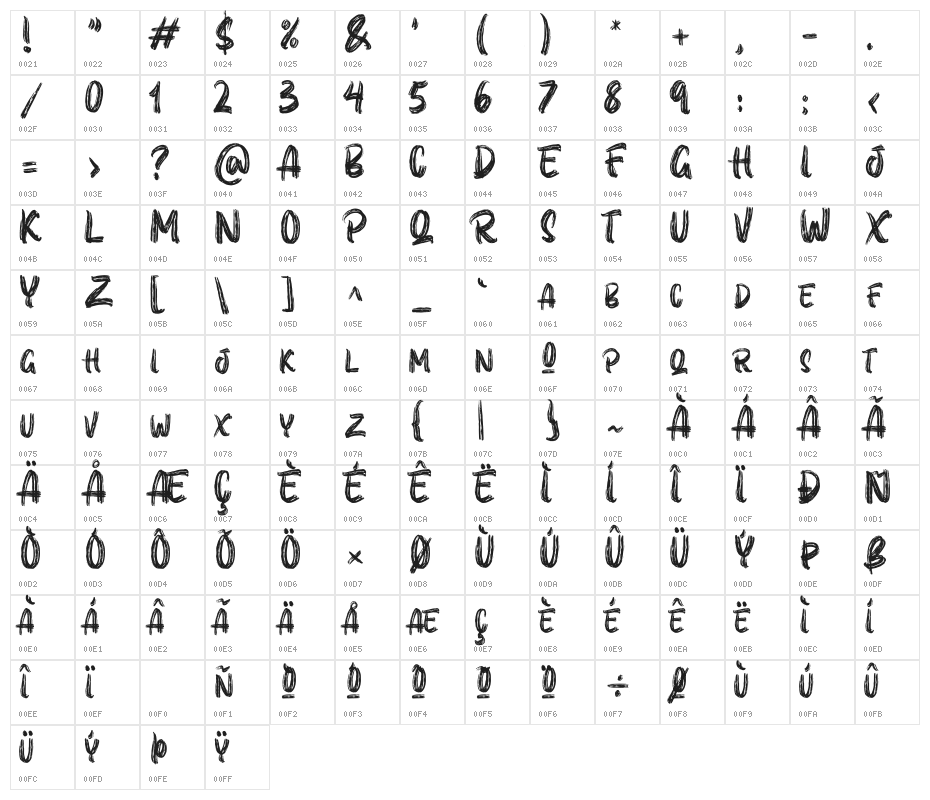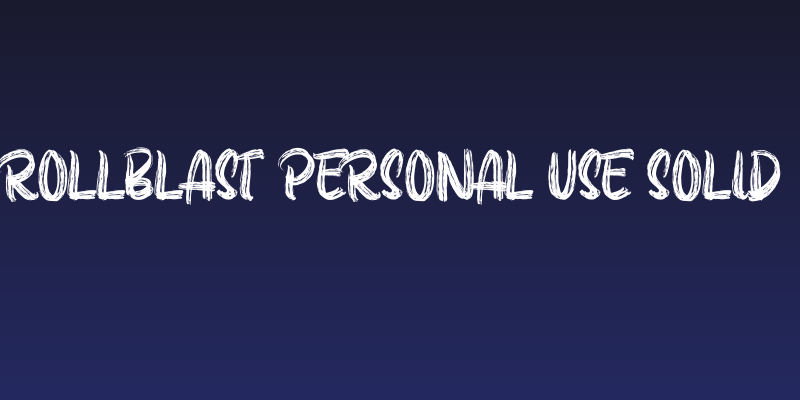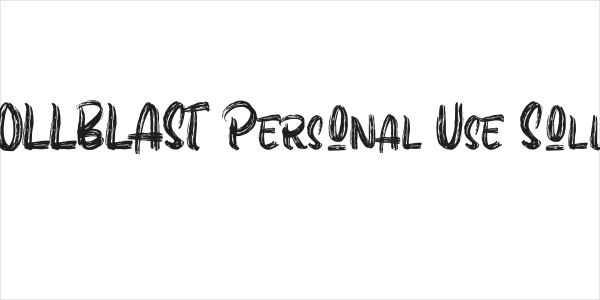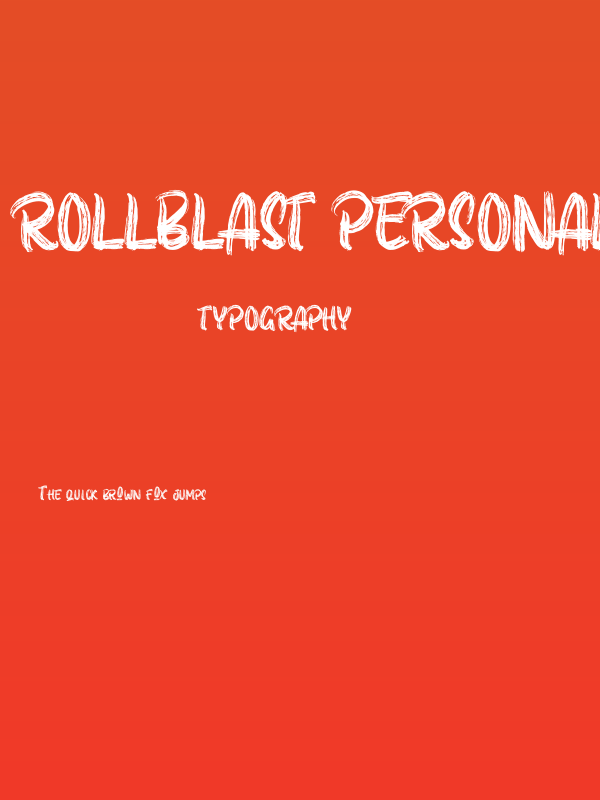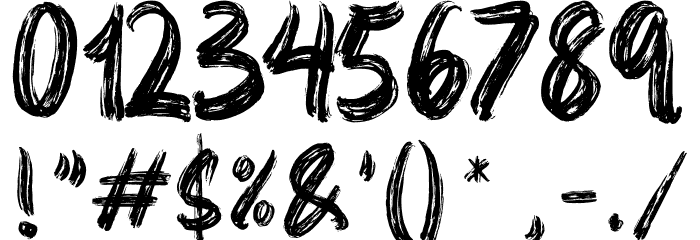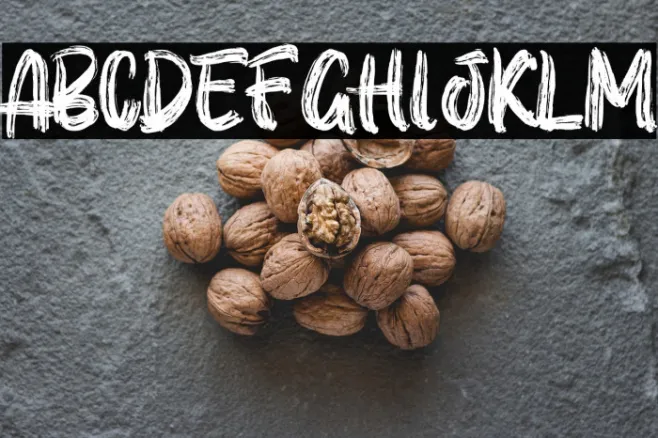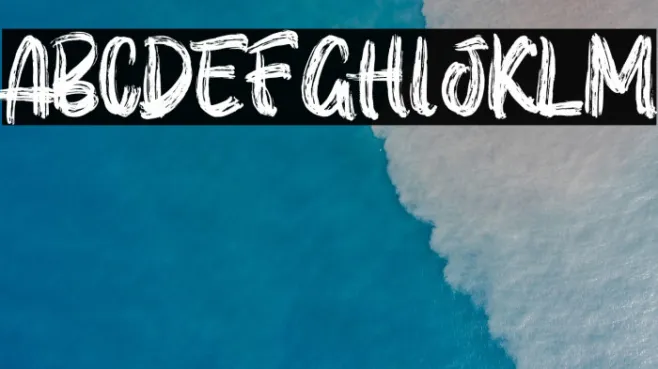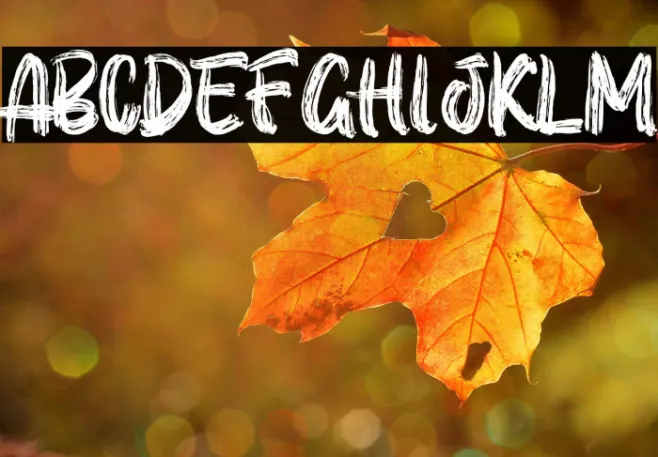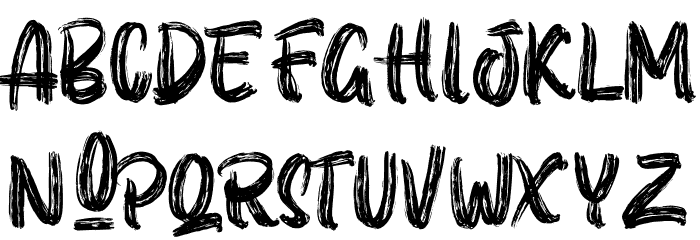
ROLLBLAST Personal Use Solid Font
ROLLBLAST Personal Use Solid Description
This font features a bold, expressive style with a hand-drawn appearance. The strokes are thick and textured, giving a dynamic and energetic feel. The characters are slightly irregular, adding to the handcrafted aesthetic. This font is highly legible despite its artistic flair, making it suitable for attention-grabbing designs. The uppercase and lowercase letters maintain a consistent style, while the numbers and special characters complement the overall look. The brush-like strokes create a sense of movement and creativity, ideal for projects that require a bold statement.
| Proposed Projects | Ideal for posters, album covers, branding, and any creative projects that require a bold, artistic touch. |